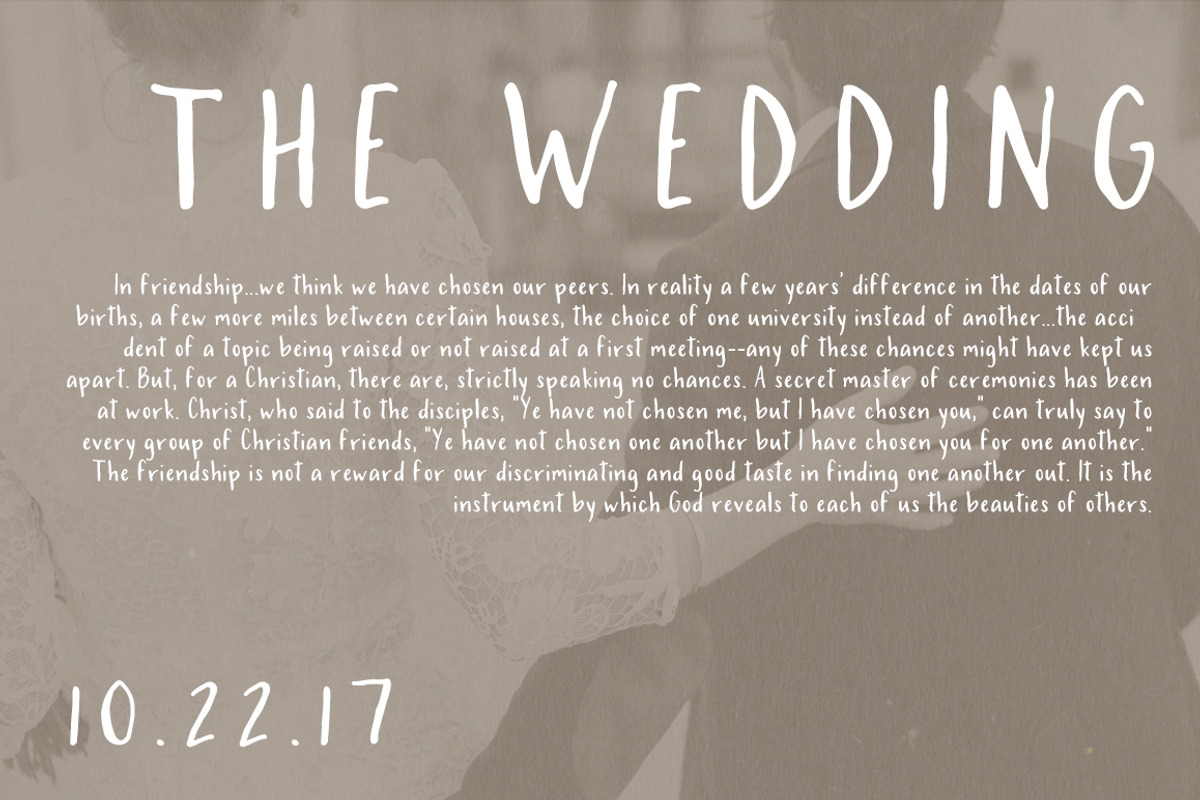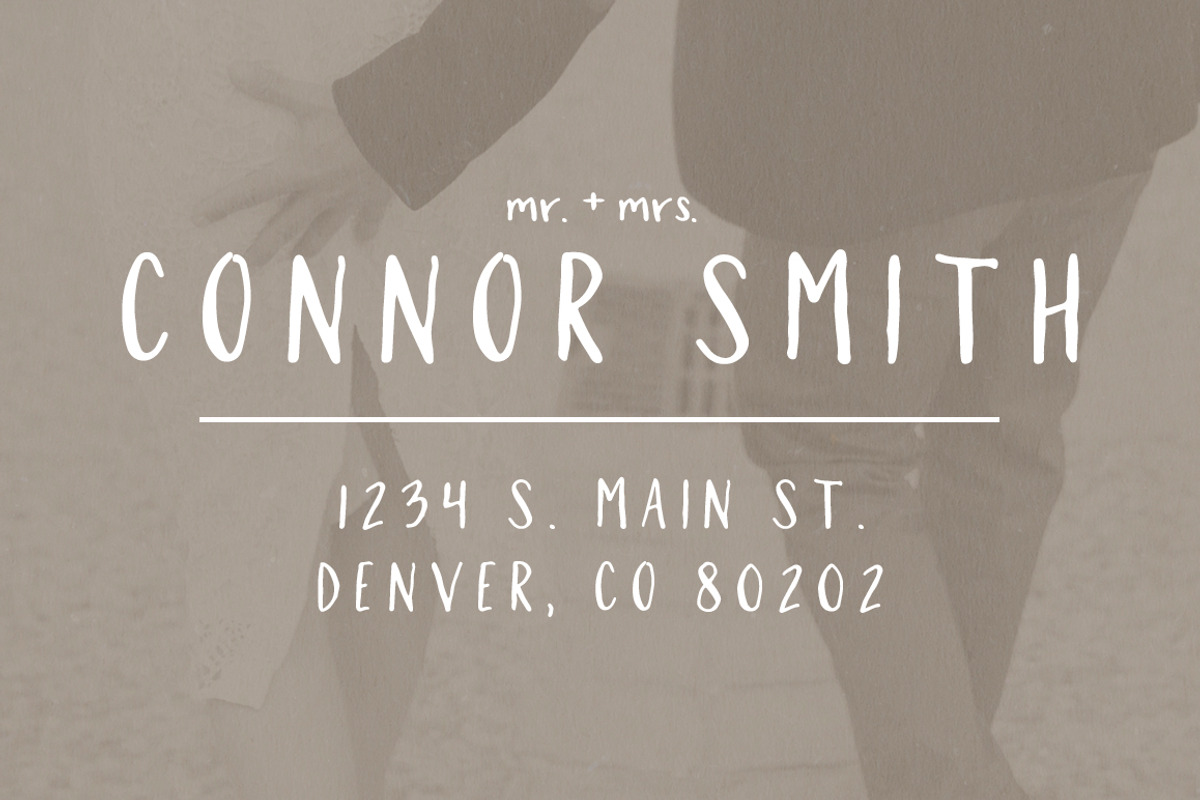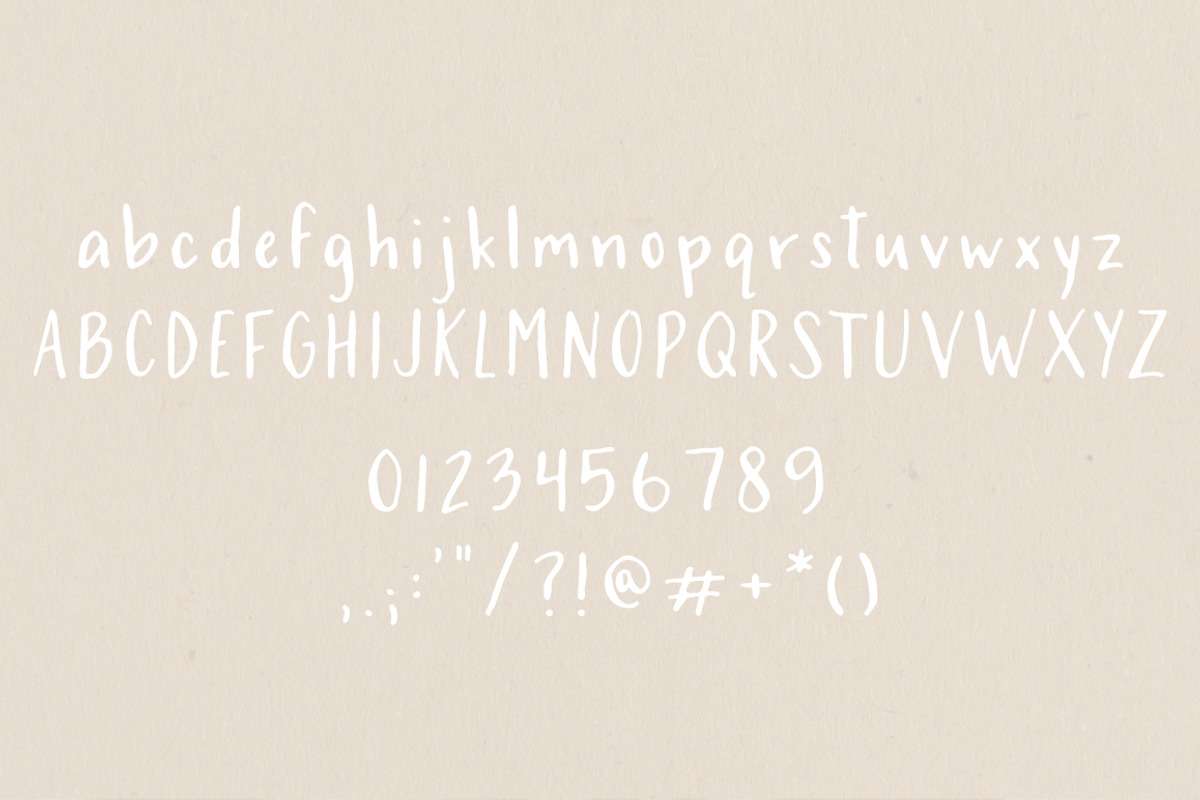
Santa Barbara Font
Santa Barbara is a sweet handwritten typeface that is designed specifically for wedding-related projects, such as envelope addressing, invitations, and signage. It looks fantastic for branding, logos, and websites as well!
• Capital & Lowercase Letters
• Numbers & Basic Punctuation
Santa Barbara Handwritten Font